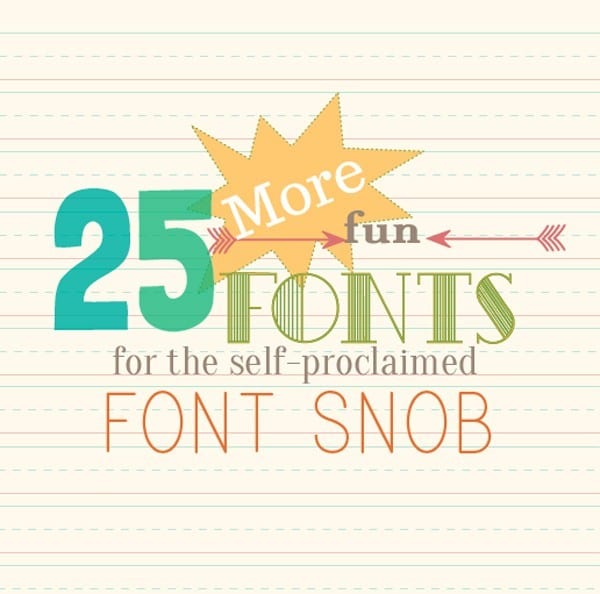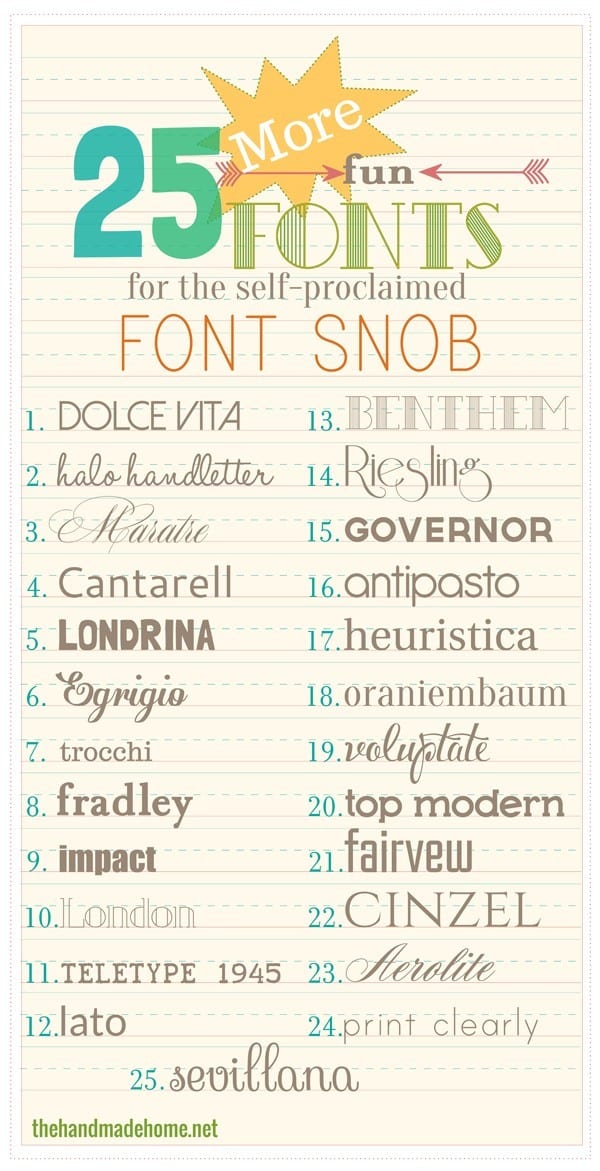
the font snob club: 25 more free fonts {feb 2014}
We were so overdue, it’s kinda sad.
But first, a little font nerd humor:
When people have too much time on their hands, they kind of rock my world.
Oh my goodness! Print clearly has a dashed option! So busting that out to teach my kiddo his letters! I loved loved loved tracing the letters in my workbooks as a kid and it reminds me of that. Too much fun! Thank you for sharing these!
This. Is. Amazing. I love fonts. Fonts, fonts, fonts 🙂